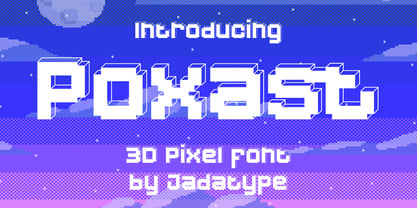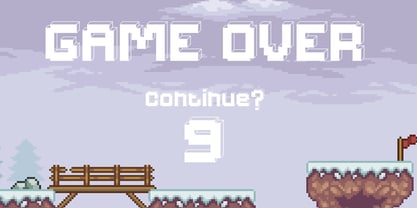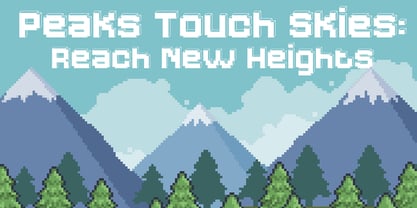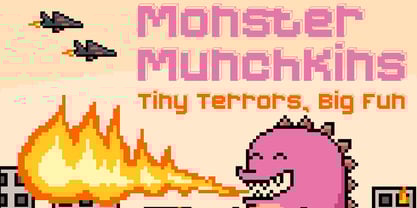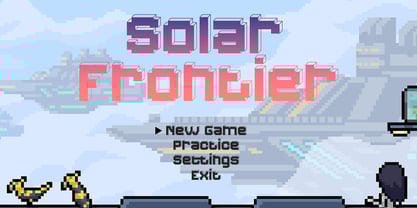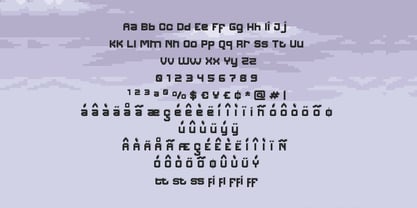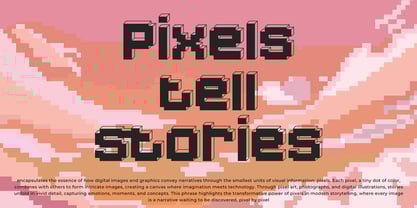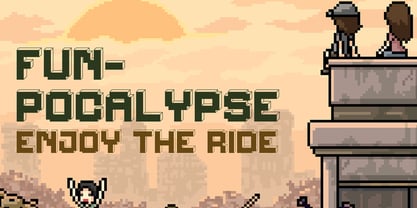
Poxast
by Jadatype
The Poxast Font Family was designed by Jada Akbal and published by Jadatype. Poxast contains 1 styles. More about this family
Poxast is a Display Font that has 3D Pixel style. Suitable for Products, Games, Branding, social media, logotype and so on. contains standard English letters, numbers, punctuation, and several accents that support multilingualism